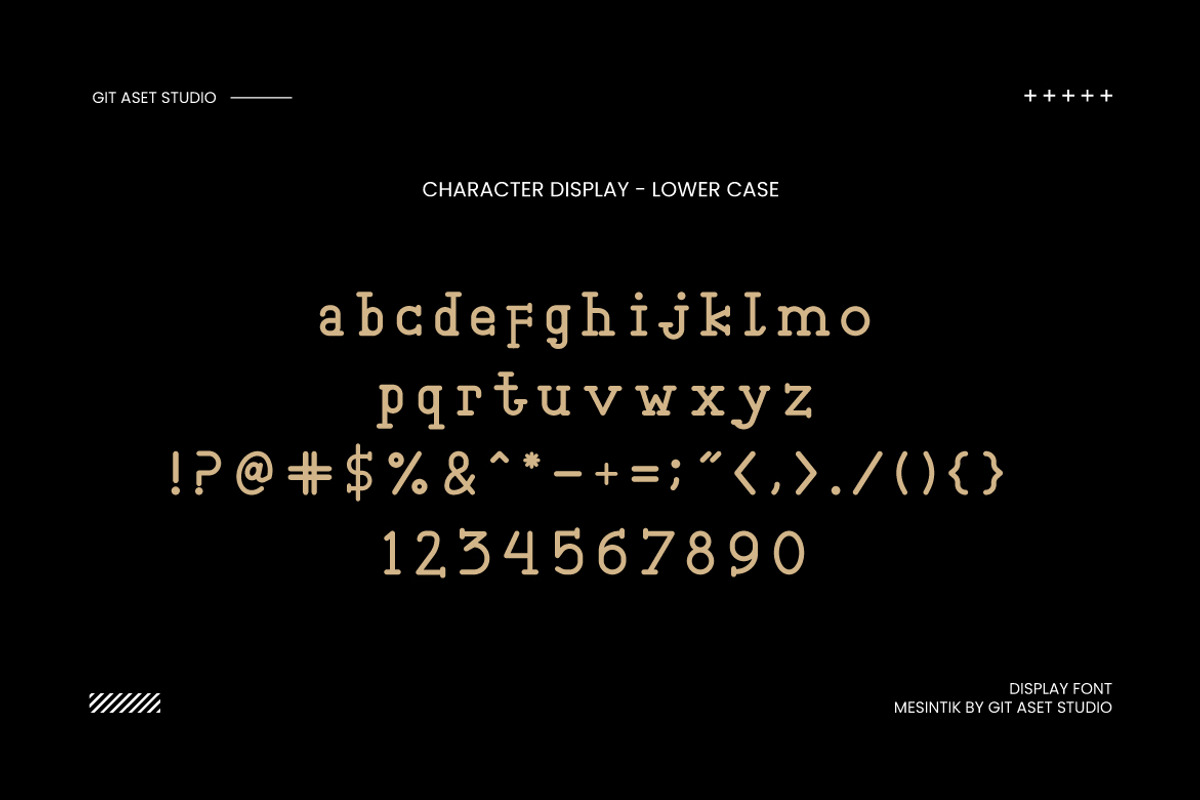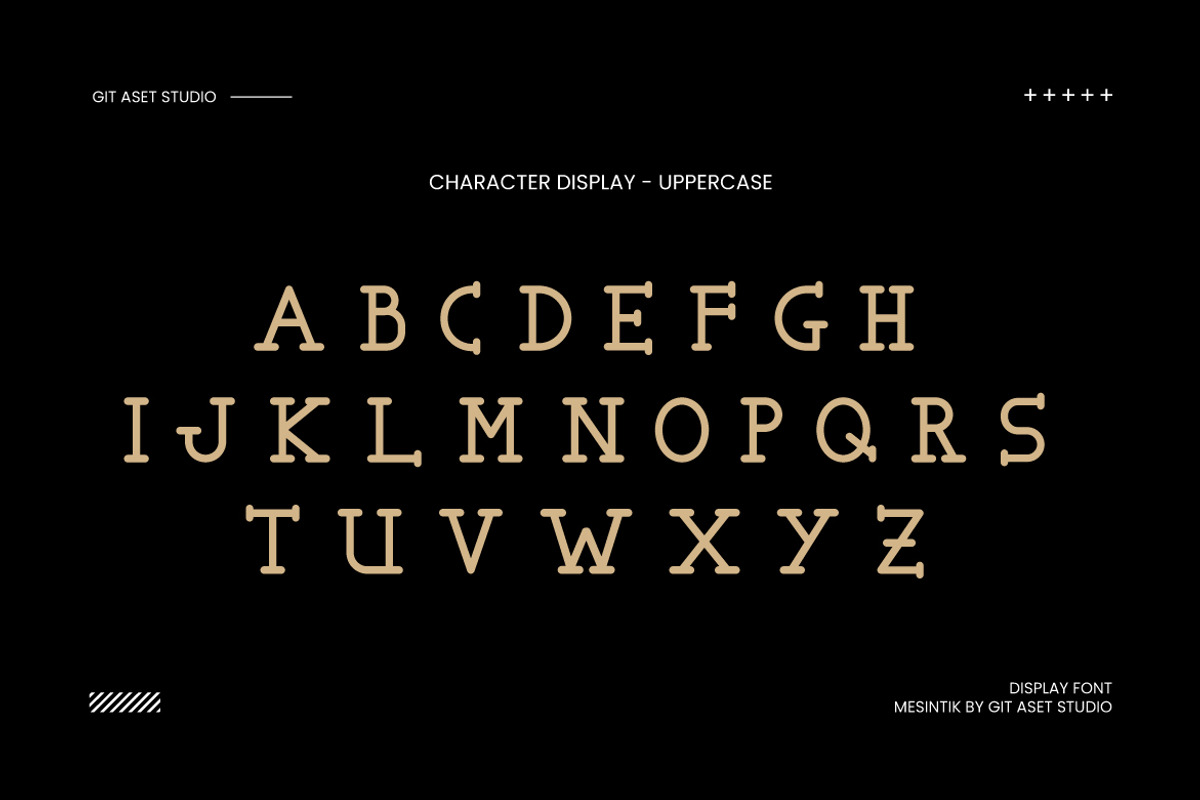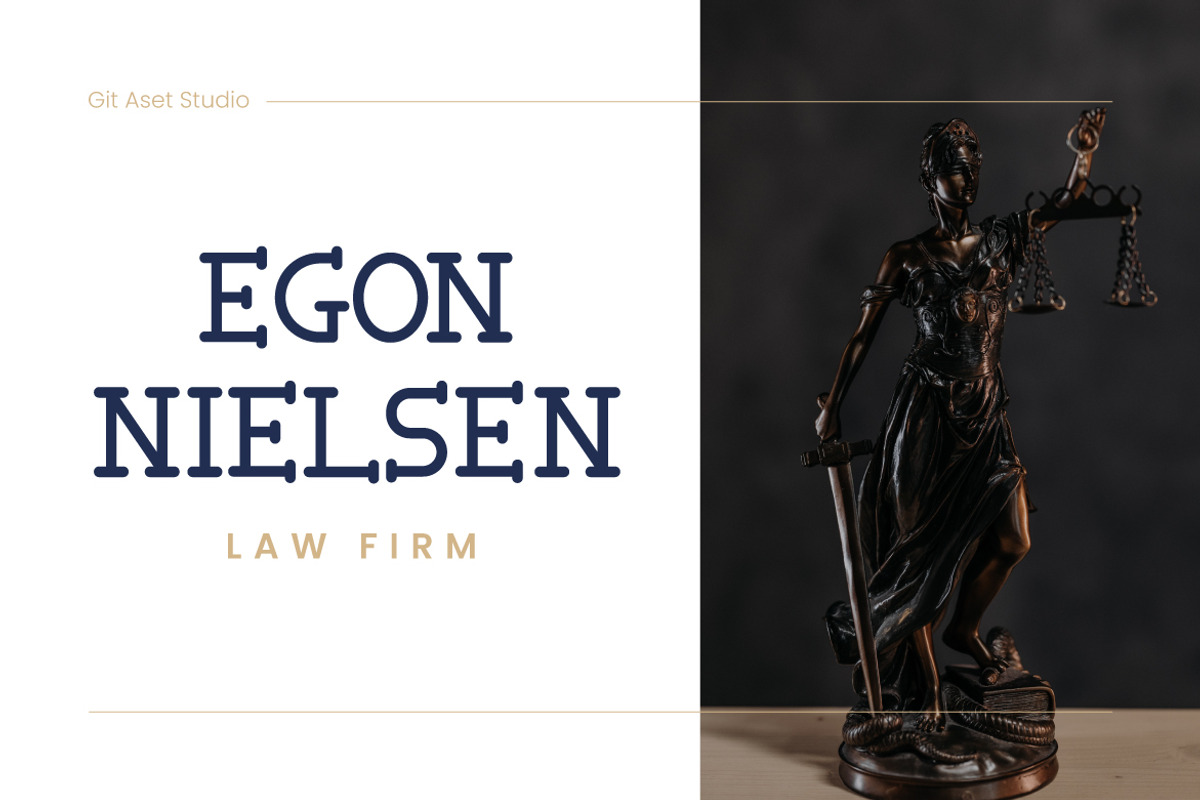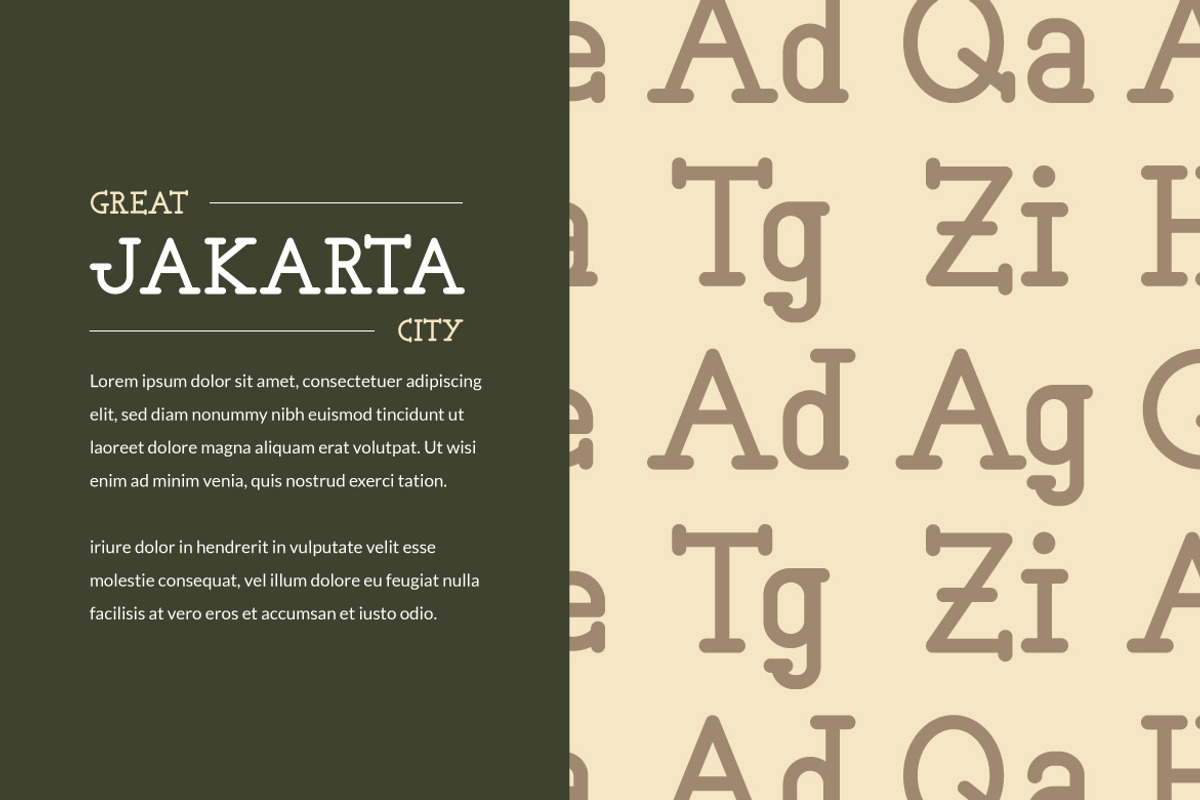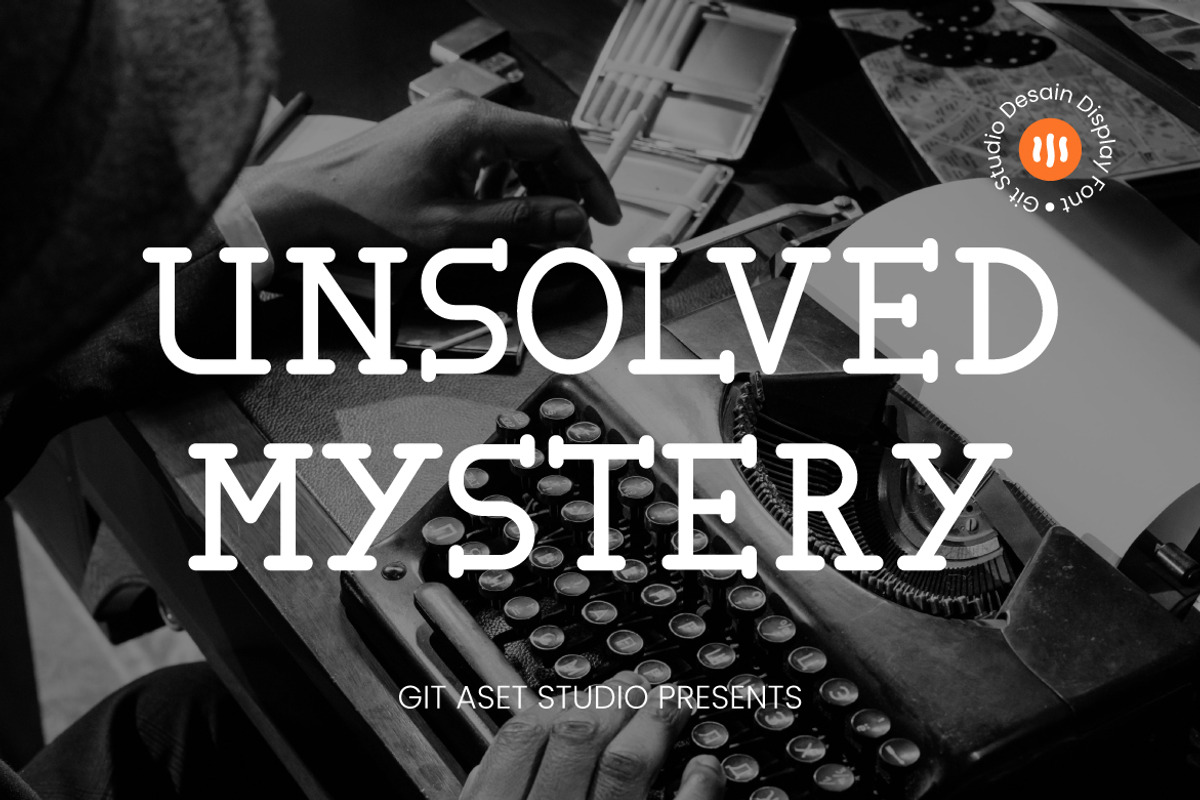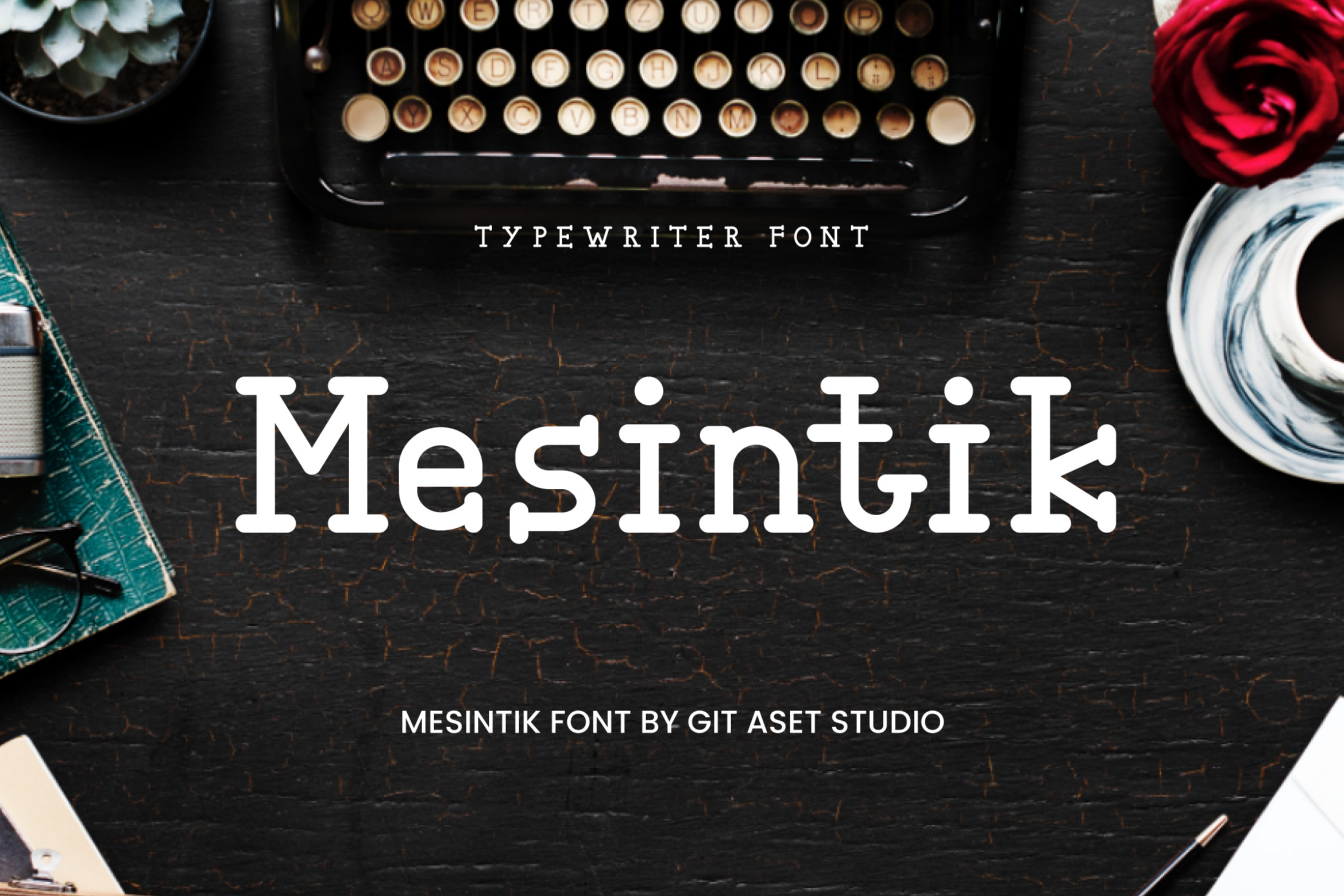
Mesintik Vintage Font
This Vintage Font is the perfect asset for adding a touch of nostalgia to your design projects. With its timeless appeal, this font is sure to capture the attention of your audience.
The Vintage Font allows you to effortlessly create vintage-inspired designs. Whether you're working on branding projects, logo designs, packaging, posters, or even website headers, this font will bring a unique charm to your creations.